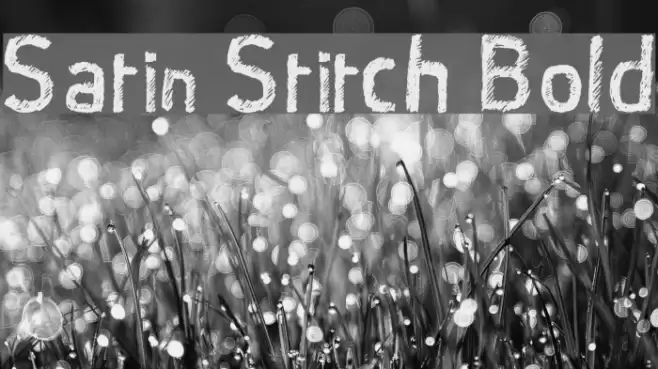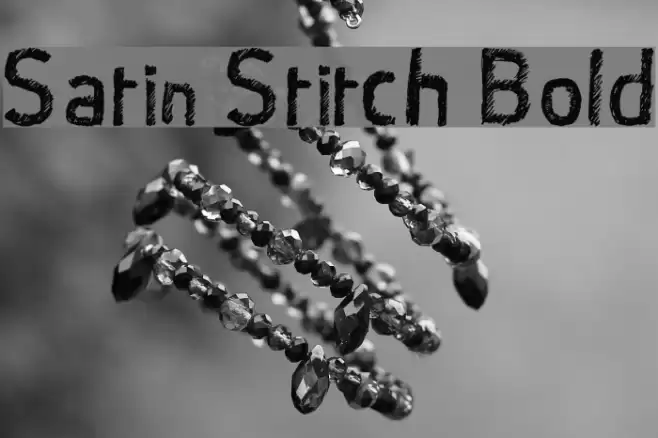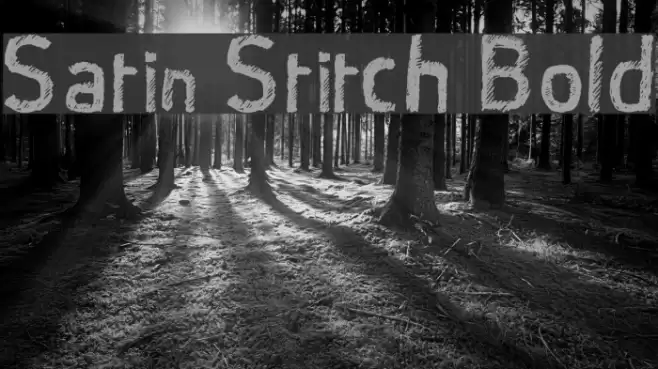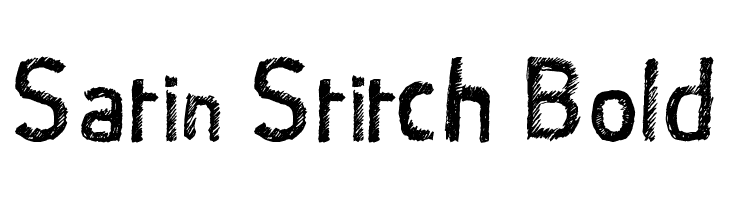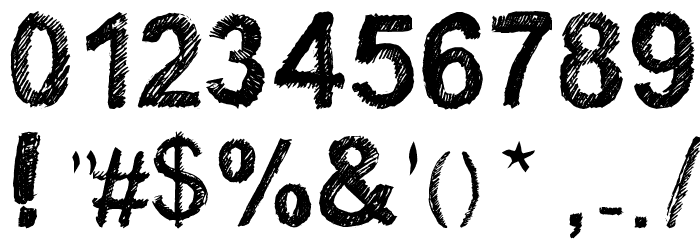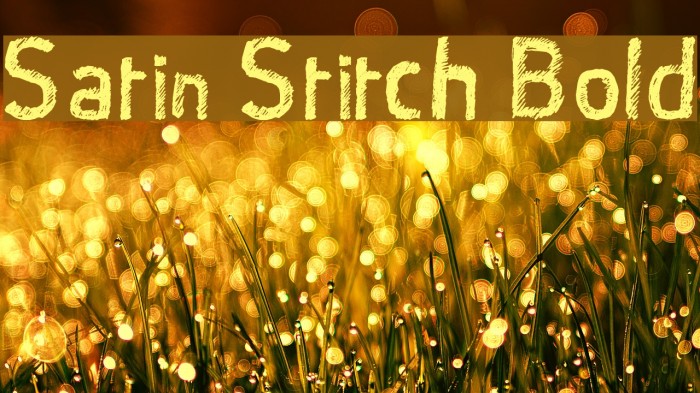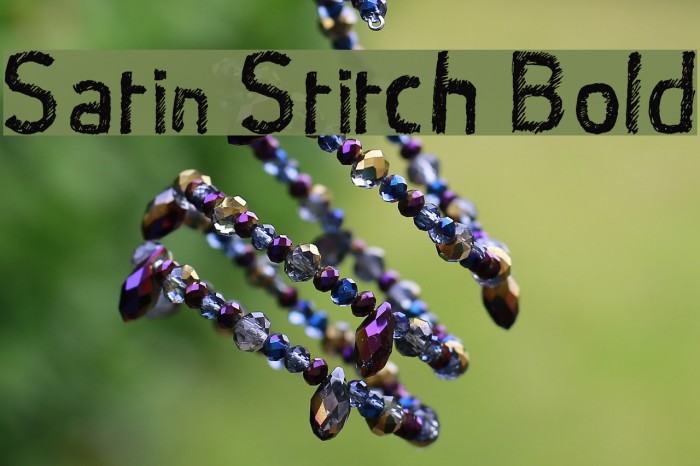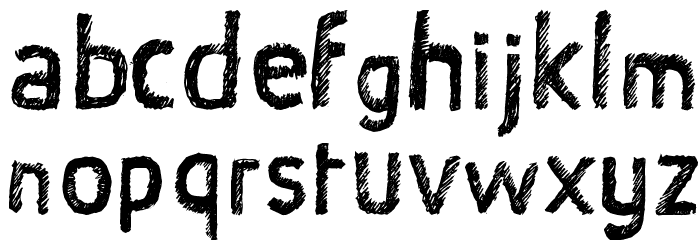
Satin Stitch Bold Font
Satin Stitch Bold Description
This font features a unique, textured design that mimics the appearance of hand-stitched embroidery. Each character is crafted with a bold, dynamic style, giving the impression of threads woven together. The texture adds depth and a tactile quality, making it stand out in any design. The uppercase and lowercase letters maintain a consistent style, while the numerals and special characters are equally detailed. This font is perfect for projects that require a handcrafted or artisanal feel, adding a touch of creativity and uniqueness.
A bold, textured font resembling hand-stitched embroidery from Uncategorized fonts.